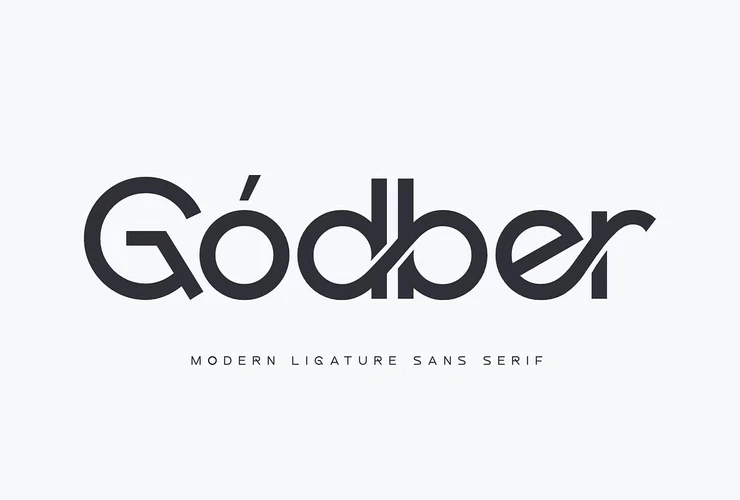
Elevate Your Brand with Godber – The Modern Ligature Sans Serif
Godber is a bold and captivating font designed to bring a sophisticated edge to your branding and design projects. This modern ligature sans serif font is the perfect choice for creating logos, posters, headlines, and more, offering a clean yet dynamic aesthetic that ensures your designs stand out.
Why Choose Godber?
1. Bold ImpactGodber is designed to make a statement. Its strong, memorable lines create an impactful presence that leaves a lasting impression, making it ideal for logos and branding.
2. Sophisticated StyleWith a blend of contemporary elegance and artistic flair, Godber adds a refined, polished look to your designs. Whether you’re crafting a sleek logo or a bold headline, this font brings a touch of sophistication to any project.
3. Versatile ApplicationFrom logos to posters and everything in between, Godber’s versatility shines through. Its clean lines and bold character make it suitable for a wide range of graphic design projects.
4. Unique LigaturesGodber features a variety of distinctive ligatures, adding creativity and character to your typography. These unique ligatures make your text truly one-of-a-kind, helping your designs stand out.
6. Sleek AestheticsMinimalist yet impactful, Godber’s sleek design ensures your work captures attention with a modern, stylish edge. It’s the perfect font for those who value both form and function in their designs.
Perfect For:
Logos & Branding: Craft modern, attention-grabbing logos that leave a lasting impression.
Posters & Headlines: Create bold, impactful posters and headlines that demand attention.
Graphic Design Projects: Use Godber’s versatile style for a wide range of design applications, from digital to print.
If you’re looking to elevate your brand and design projects with a font that exudes both sophistication and style, Godber is the perfect choice. Its bold impact, unique ligatures, and versatile application make it an essential addition to any designer’s toolkit. Download Godber today and let your designs stand out with its sleek, contemporary flair.